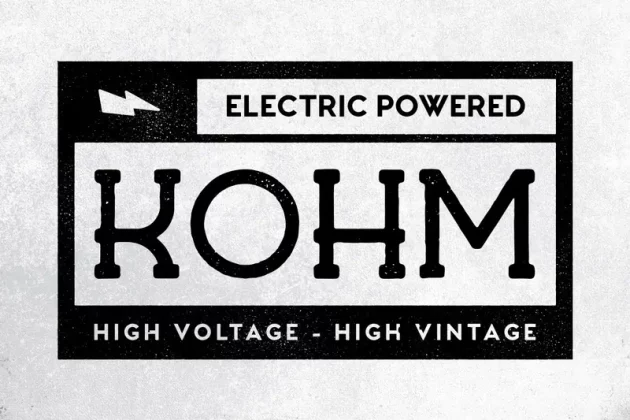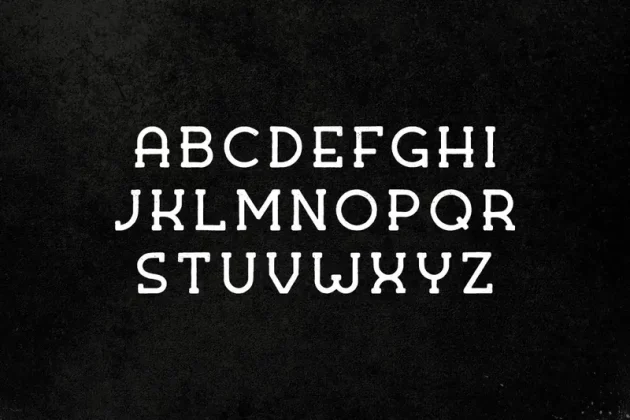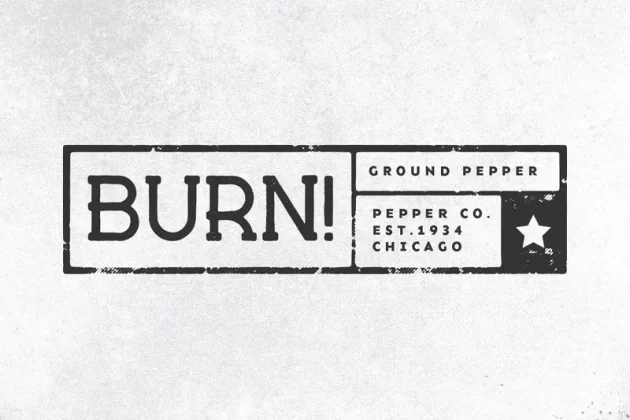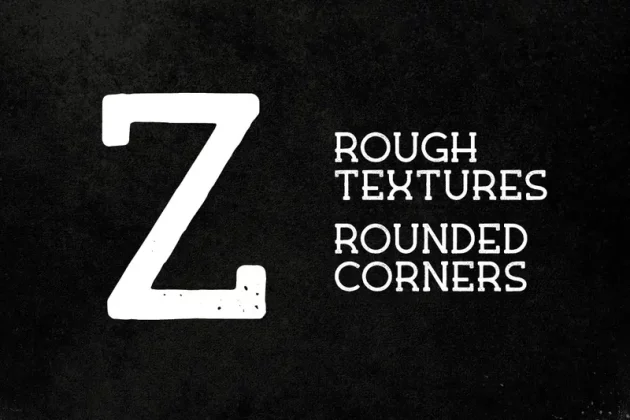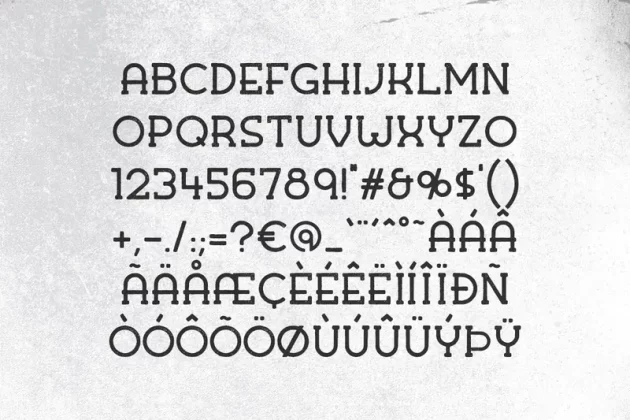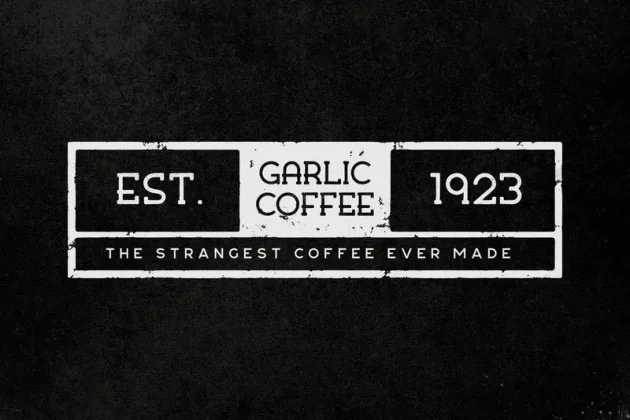
Kohm – Vintage Font
Kohm is a vintage display serif font with a rough aesthetic. It’s great for logos, posters, packaging and badges! It includes uppercase multilingual letters, numbers and punctuation.
I opted not to include a clean version as I think the rough style really works with this font. It’s very subtle when viewed from afar but much more prominent when zoomed in and looks very natural.